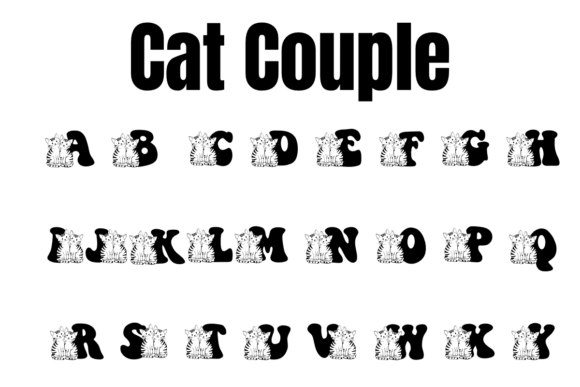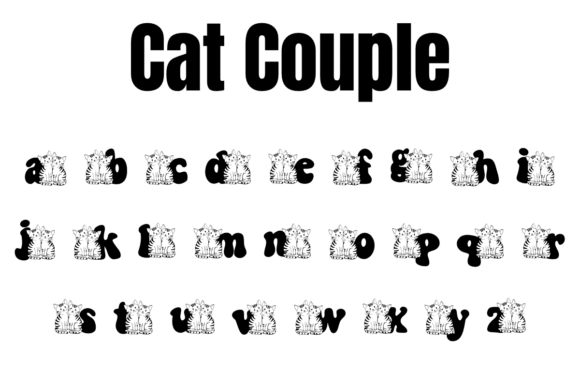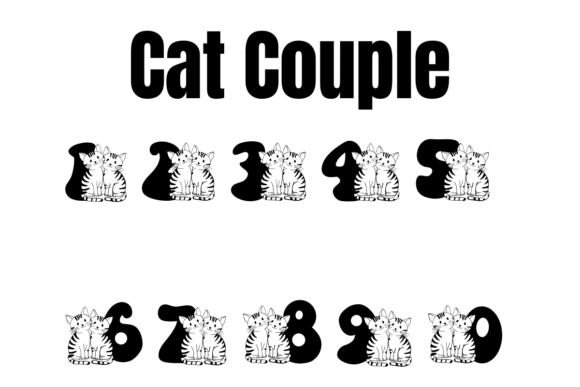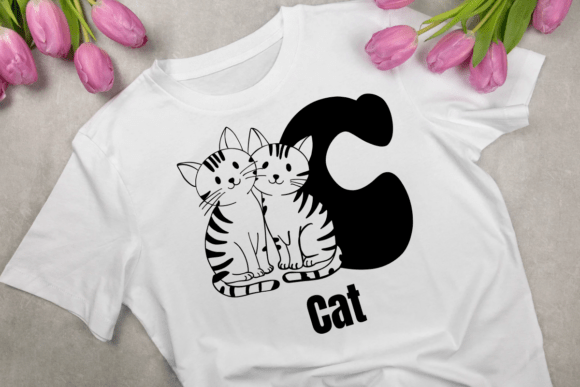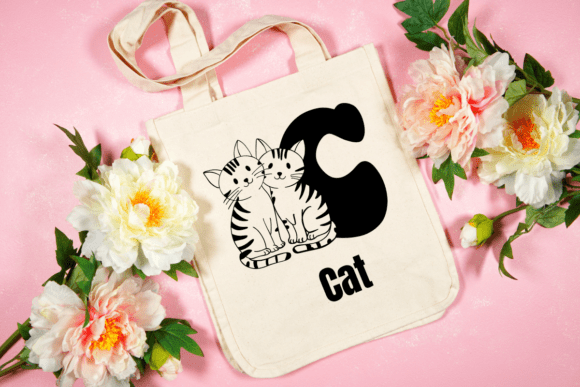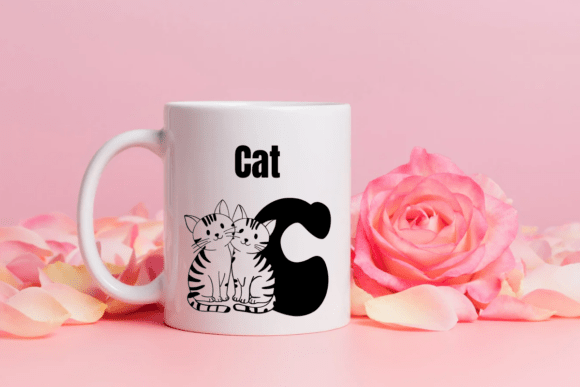
Get Ready to Purr-fect Your Designs
Do you remember the feeling of curling up with a cup of coffee and a fresh notebook, eager to start a new creative project? The blank pages and endless possibilities can be both thrilling and intimidating. As a designer, you’re always on the lookout for the perfect font to bring your ideas to life. That’s where the adorable Cat Couple Font comes in – a charming, decorative font that’s sure to capture hearts and add a touch of whimsy to your designs.
This delightful font is perfect for taking notes, writing a diary, or creating greeting cards, but its versatility doesn’t stop there. With the Cat Couple Font, you can unleash your creativity and use it for a wide range of designs, from banners and social media posts to mugs, cards, and shirts.
Cat Couple Font Key Features
- Font Style: A unique, playful font featuring a cat couple design, perfect for adding a touch of whimsy to your designs.
- Character Count: The font includes a range of characters, including uppercase and lowercase letters, numbers, and punctuation marks.
- Unique Characteristics: The font’s distinctive cat couple design makes it a standout choice for designers looking to add a touch of personality to their work.
Cat Couple Font Review
I recently had the chance to work with the Cat Couple Font, and I must say, it’s a unique and quirky addition to any design project. ✨ One of the things that works well with this font is its playful and whimsical feel, making it perfect for designs that require a touch of humor or lightheartedness. It’s great for creating eye-catching social media graphics, advertising campaigns, or even children’s book illustrations.
Another advantage of the Cat Couple Font is its versatility. It comes in a range of styles, from bold and playful to more subtle and elegant. ✨ This makes it easy to incorporate into various design projects, from modern and trendy to more classic and timeless.
- ⚠️ Limited font sizes: The Cat Couple Font may not be suitable for large-scale typography, as the details can get lost.
- ⚠️ Limited legibility: In certain font sizes or styles, the Cat Couple Font can be difficult to read, especially for those with visual impairments.
- ⚠️ Limited language support: The Cat Couple Font may not support all languages, which can limit its use in multilingual designs.
Overall, I think the Cat Couple Font is a fun and creative addition to any design project. While it has some limitations, it’s a great choice for designs that require a playful and whimsical feel. With some careful planning and consideration, you can create stunning designs that showcase the Cat Couple Font’s unique charm.
The Cat Couple Font is perfect for adding a playful and whimsical touch to your designs. Use it for:
- Blog posts and social media graphics
- Custom gift tags and labels
Remember to experiment with different font sizes, colors, and styles to get the most out of this unique font.